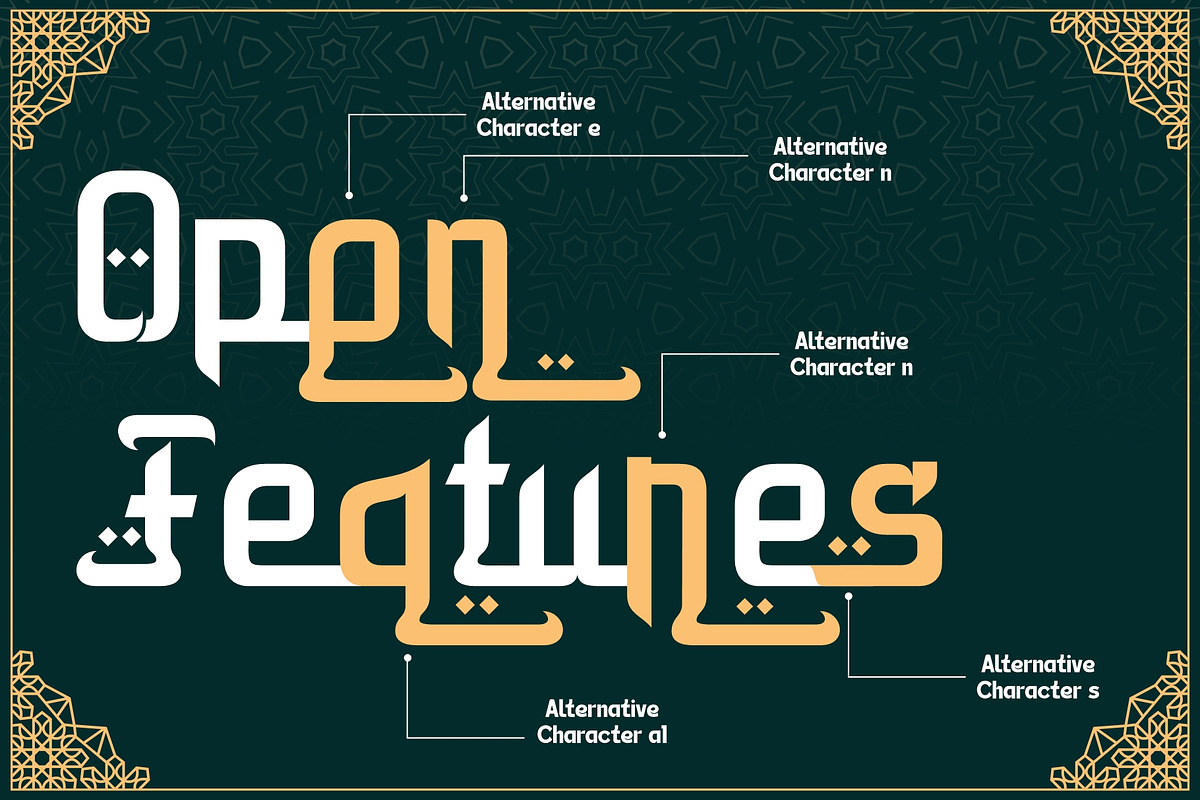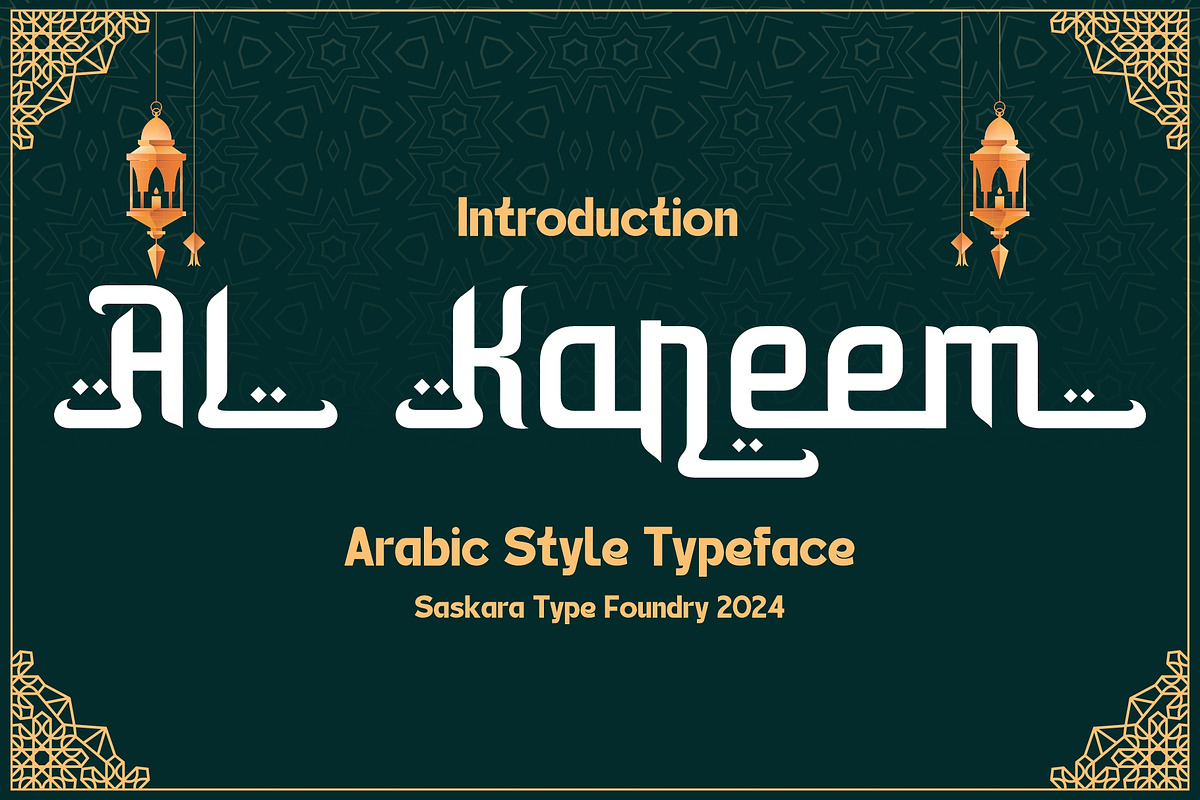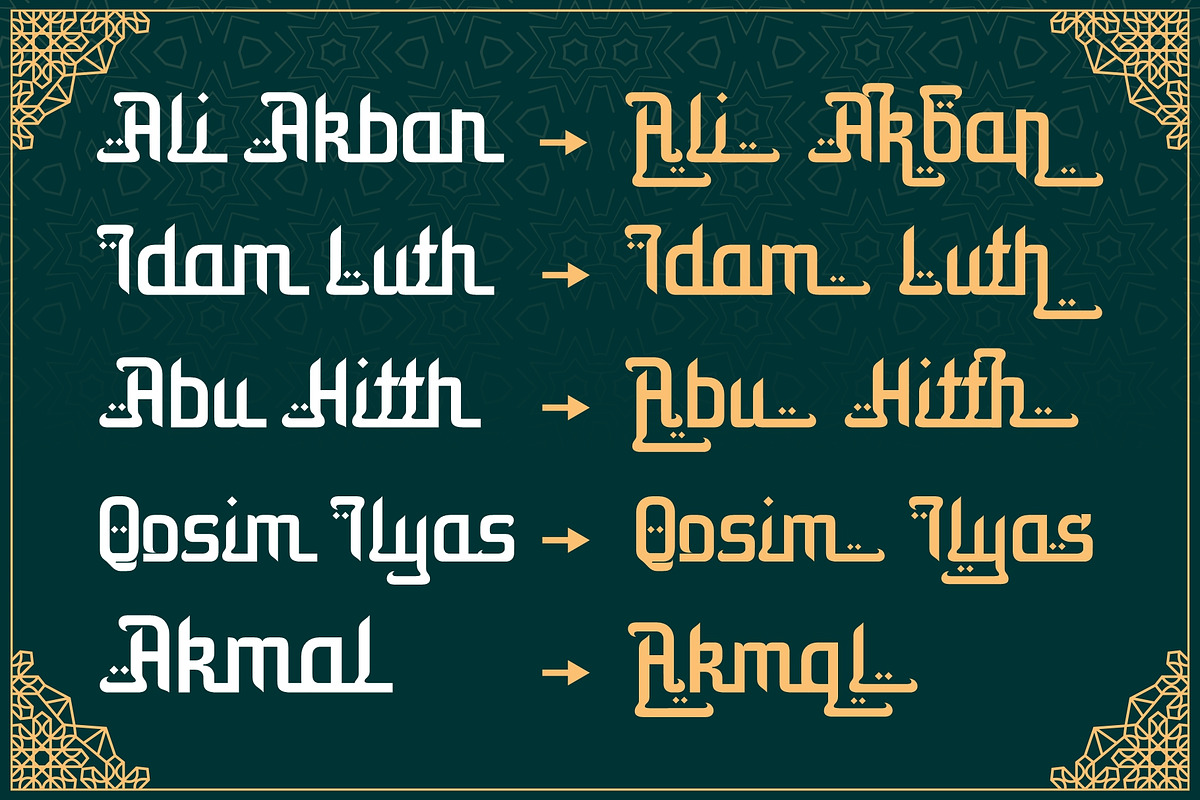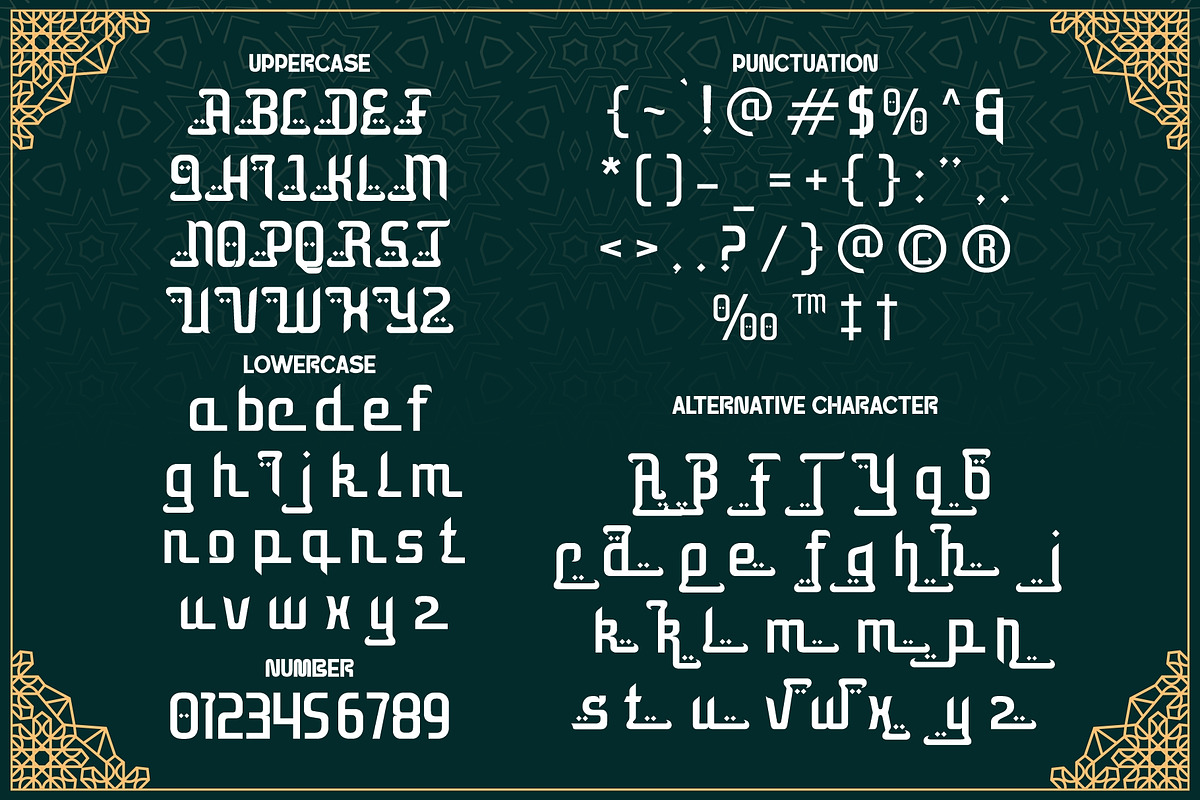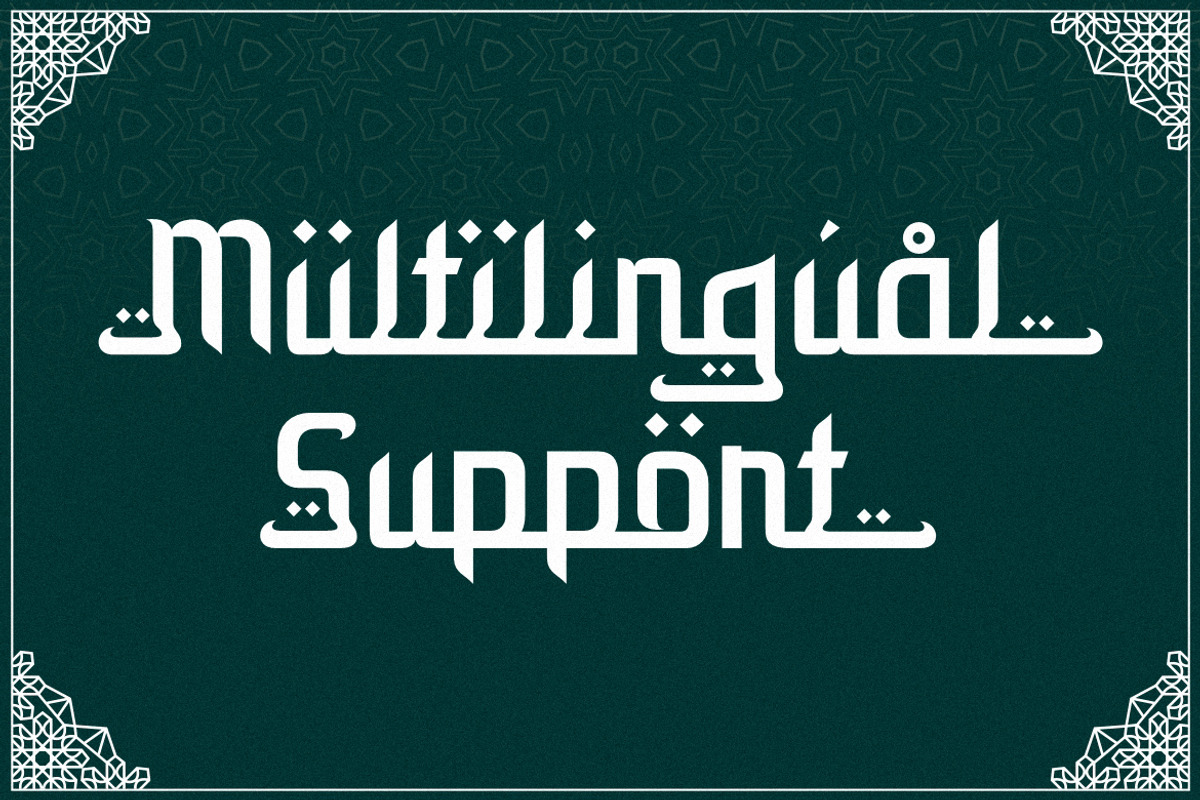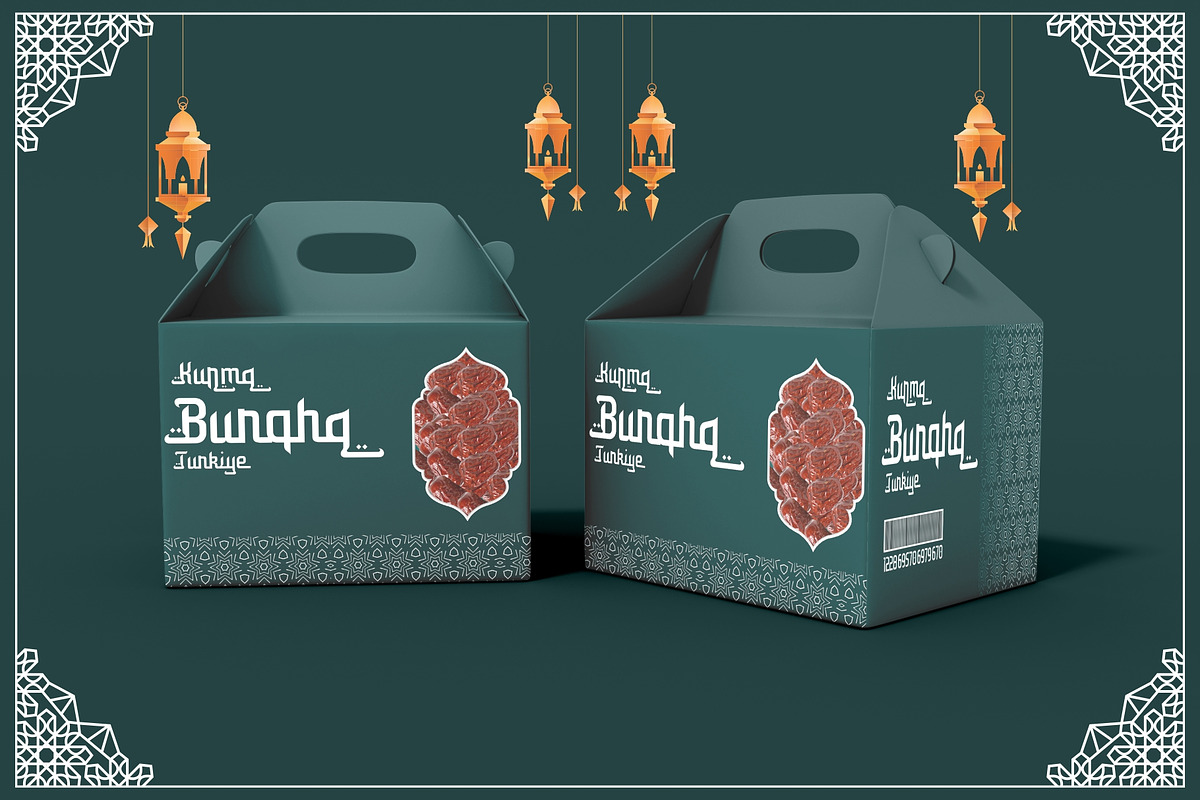
Al Kareem
Al Kareem is a decorative arabic style font with a modern touch packed strong and dynamic, a great font for logos, labels, flayers, Brochures, Signage, Pubs, Illustration Design, Handmade Brands, anything related to modern style, religious style, etc.